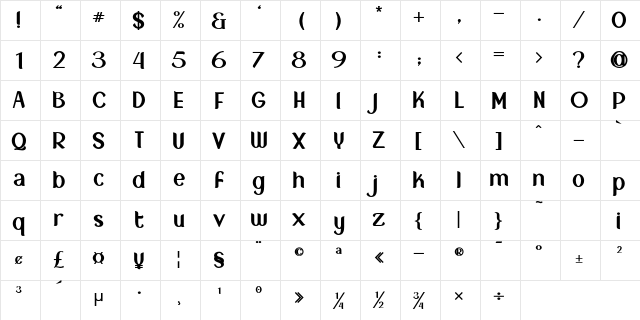
New Crown Bold_DEMO
| Designer | Omotu Studio 2020 |
Design Context for New Crown Typeface
New Crown offers clean, dependable letterforms without strong stylistic allegiance, making it a practical choice for designers who need flexibility. Its bold stroke weight gives it real presence on the page.